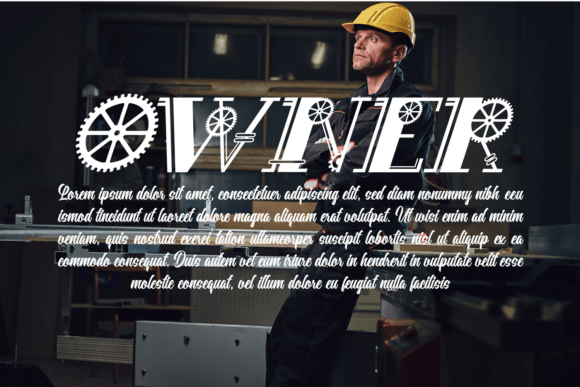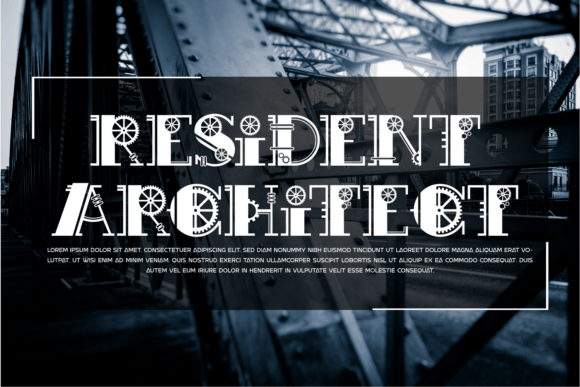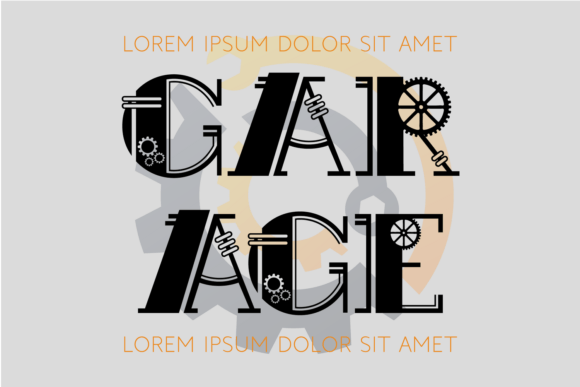
Mechanical Font
About the Mechanical Font
Make a bold statement with Mechanical Font, a powerful and memorable font. Mechanical Font is a very unusual font for headings consisting only of capital letters of the Latin alphabet, the design is made in the style of mechanisms. You will be able to form words and any text characters from that font. You can create your own look and use it for logos, labels, posters, magazines, books, cards, and packaging.
Mechanical Font’s strong, industrial aesthetic makes it ideal for headlines, logos, and short impactful statements in branding materials and posters. Its unique character is less suitable for body text or long-form content; the highly stylized letterforms would hinder readability in such contexts. Avoid using it for user interfaces or situations requiring high levels of legibility.
The font’s personality is bold and assertive, lending itself to projects that demand attention and convey a sense of power or innovation. Think technology, engineering, or industrial design brands.
Pairing it with a clean sans-serif like Helvetica Neue for body text provides excellent contrast, balancing Mechanical Font’s strong presence. Alternatively, a classic serif such as Garamond could add a touch of sophistication, grounding the mechanical aesthetic. Avoid pairing it with other highly stylized fonts, as this could create visual chaos.
Mechanical Font Usage Examples
Mechanical Font Example